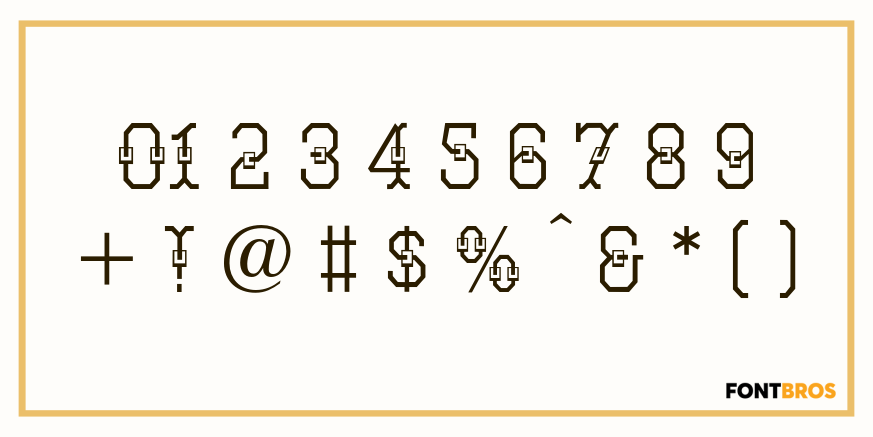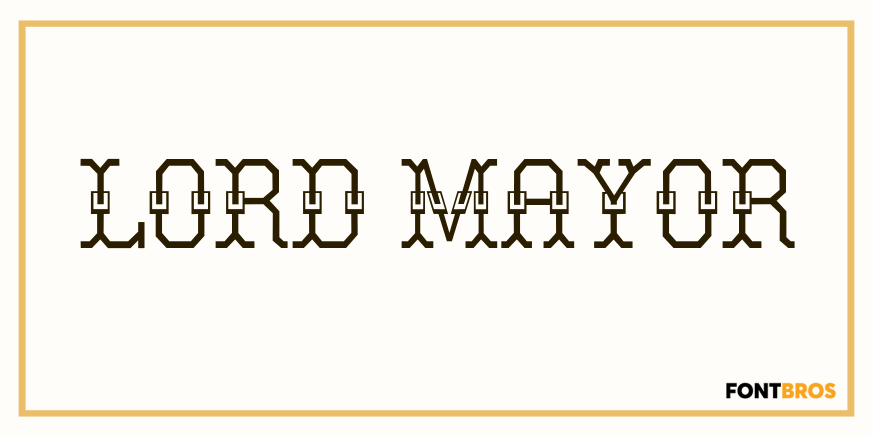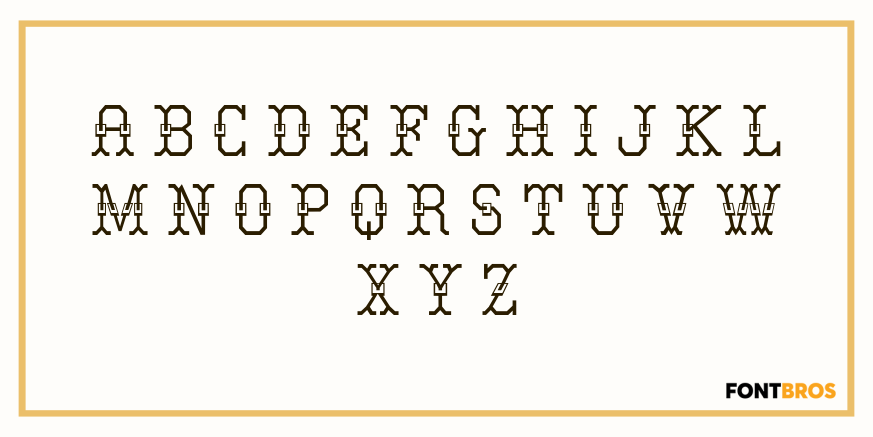
Lord Mayor
We know very little about this font. A printer in Lisbon had it, but said it came from England. Nicolette Gray shows it in her Nineteenth Century Ornamented Type Faces as Lord Mayor from the British Typefoundry. We never got the complete font, but drawing the missing letters was not difficult.
Lord Mayor includes 253 glyphs.
Lord Mayor by Solotype